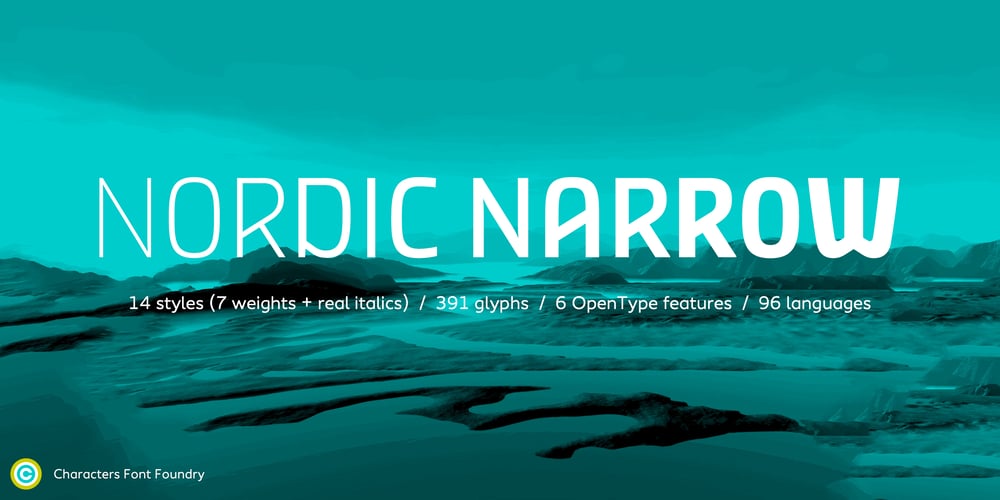
Nordic Narrow Pro
Nordic Narrow Pro font
Nordic Narrow Pro Font Family was designed by René Verkaart and published by Characters Font Foundry. Nordic Narrow Pro contains 50 styles and family package options. Nordic Narrow is a cool and stylish sans serif type family with a Scandinavian touch. It has 14 styles for the hardcore designer. Nordic Narrow has its base in a geometric grid but still manages to keep a warm analog touch. One of the trademarks are the diagonal mid strokes. It shines in fashion, magazine and logo designs. WEIGHTS Nordic Narrow Pro comes in a staggering 14 styles (7 weights plus matching real italics) and carries 391 glyphs. A strong workhorse for designers and type lovers alike. LANGUAGE SUPPORT Nordic Narrow supports 96 latin languages. See if it speaks yours. Let us know when you need more languages supported. CFF Nordic Narrow is a stylish sans serif type family by René Verkaart